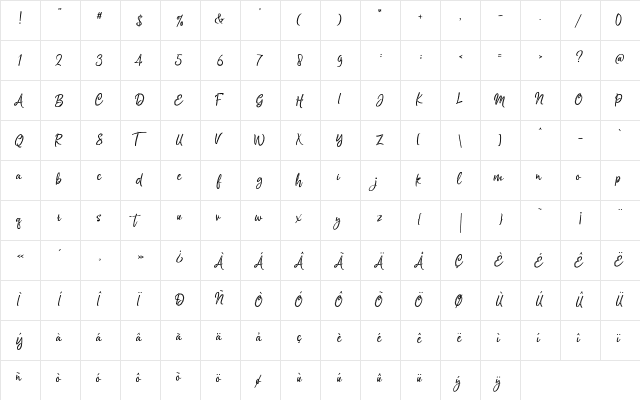
Silentmind Rough Regular
Design Context for Silentmind Rough Typeface
Silentmind Rough embraces imperfection — its rough, textured character adds raw authenticity to designs that want to feel lived-in and unconventional.
A strong fit for alternative music projects, graffiti-adjacent design, and anything that deliberately resists polish.
Pro Tip: Use Silentmind Rough at larger sizes where the texture and irregularity of each letterform can be clearly seen — it loses its character at small sizes.